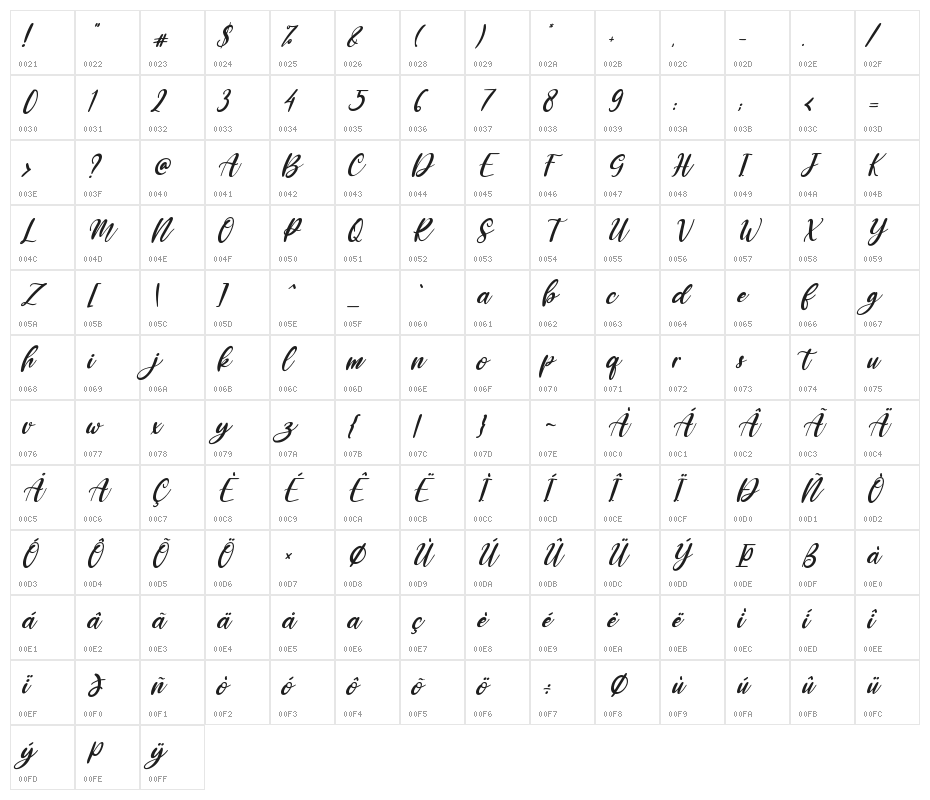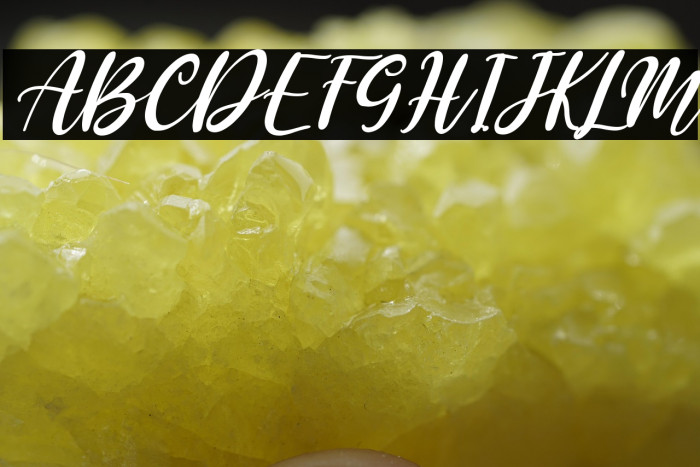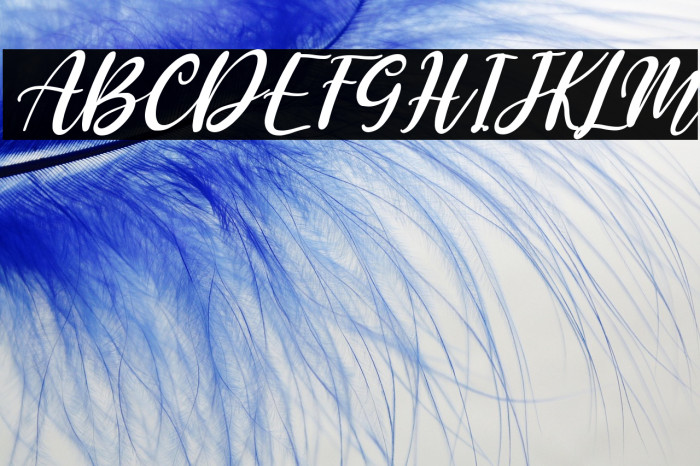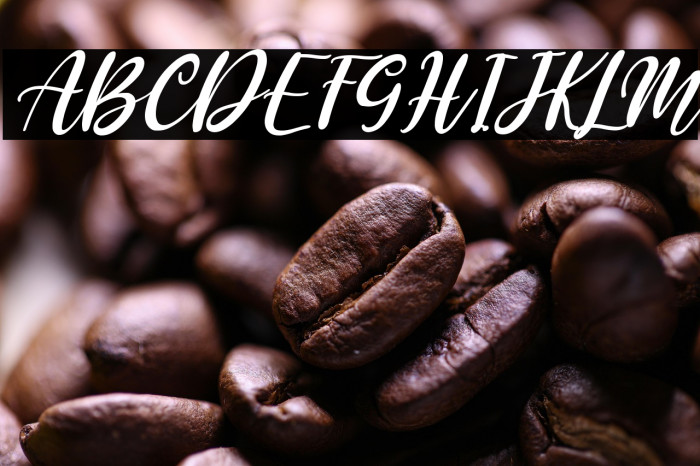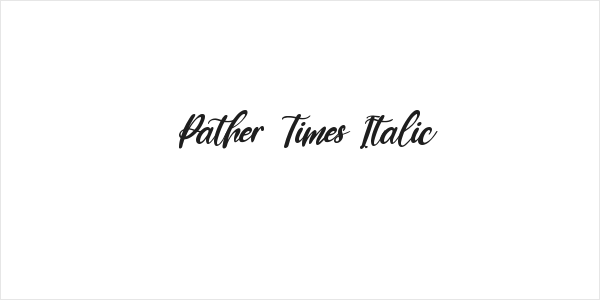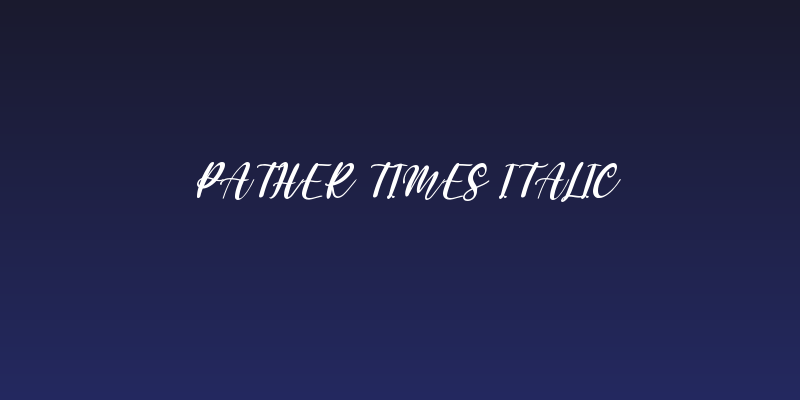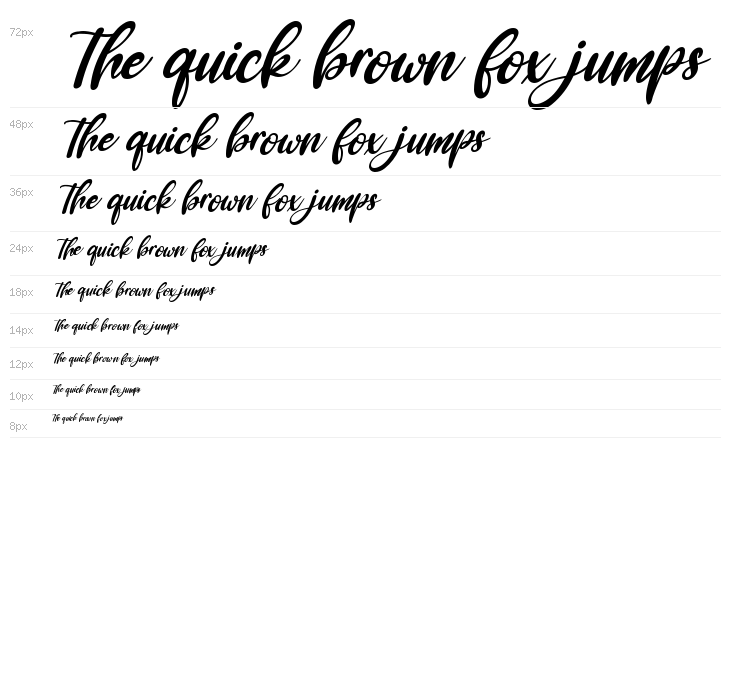
Pather Times Italic Font
Pather Times Italic Description
This font exudes a dynamic and elegant script style, characterized by its fluid, cursive strokes and a slight slant that adds a sense of motion. The uppercase letters are bold and sweeping, while the lowercase letters maintain a consistent flow, creating a harmonious balance. The numerals are stylishly crafted, matching the overall aesthetic with their curvaceous forms. Special characters are thoughtfully designed, ensuring they integrate seamlessly with the rest of the typeface. This font's design is both expressive and sophisticated, making it suitable for a variety of creative applications.